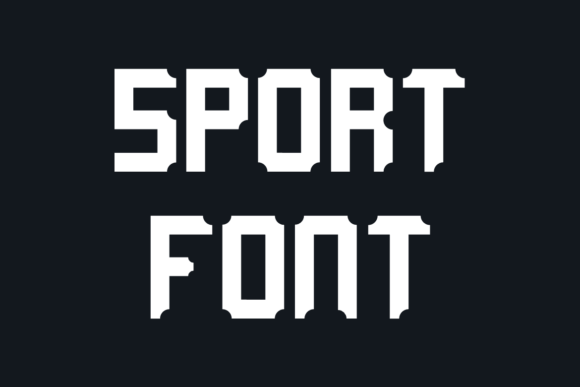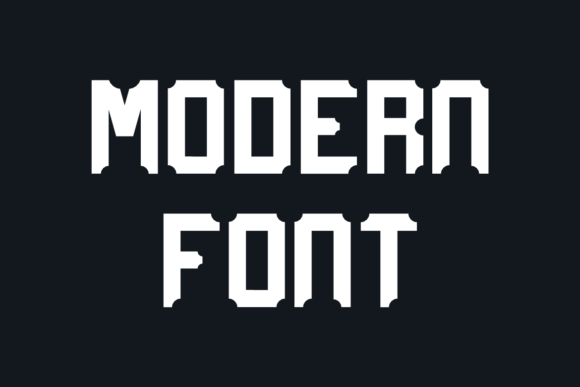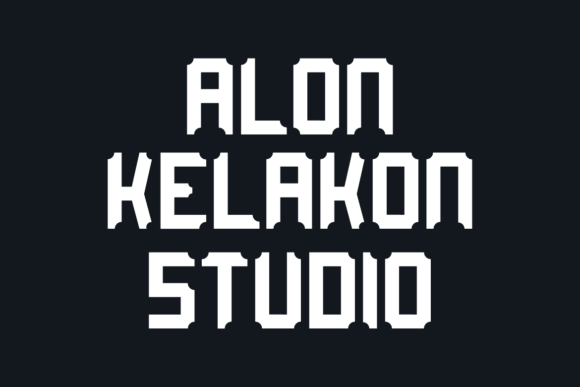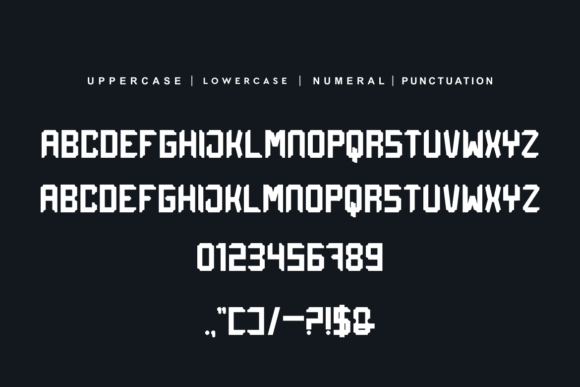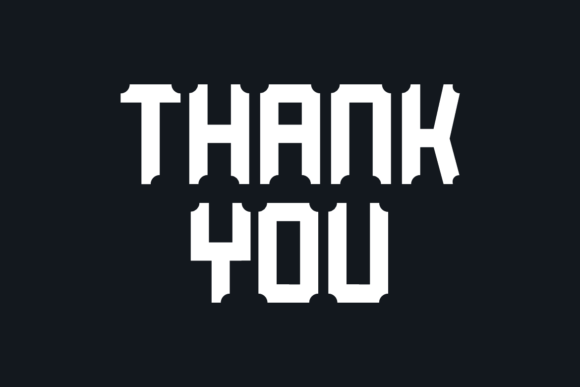
Introducing Garskin Font: The Ultimate Display Font for Modern Designers
In the world of typography, fonts play a crucial role in conveying the tone and personality of a design. For designers, crafters, and digital artists, finding the perfect font can make all the difference in creating visually stunning and effective designs. If you’re on the hunt for a bold, trendy, and versatile font, look no further than Garskin Font, specifically its bold and eye-catching variant, Grimstroke.
What is Grimstroke?
Grimstroke is a bold, all-caps display font that embodies the perfect blend of modern trendiness and classic typography. Its robust and commanding presence makes it an ideal choice for a wide range of design applications. Whether you’re working on crafting projects, digital designs, presentations, or greeting cards, Grimstroke is the perfect companion to help you make a statement.
Key Features of Grimstroke
- Bold and Eye-Catching: Grimstroke’s bold design ensures that your text doesn’t go unnoticed. Its substantial presence is perfect for headlines, titles, and any design element you want to highlight.
- All-Caps Design: The all-caps design of Grimstroke lends it a sense of grandeur and formality, making it suitable for a variety of professional and creative projects.
- Trendy and Modern: With its clean lines and contemporary aesthetic, Grimstroke brings a touch of modernity to any design, ensuring it stays relevant and appealing.
- Versatile: Despite its bold nature, Grimstroke is surprisingly versatile. It can be used in various design contexts, from digital media to print materials, without losing its impact.
Use Cases for Grimstroke
The versatility of Grimstroke makes it suitable for a multitude of design projects. Here are some popular use cases:
- Crafting Projects: Add a professional touch to your handmade crafts, such as knitted items, jewelry, or art pieces, with custom labels or cards featuring Grimstroke.
- Digital Designing: Enhance your digital portfolios, social media graphics, and website headers with Grimstroke’s bold and modern aesthetic.
- Presentations: Make your presentation titles and key points stand out with Grimstroke, ensuring your message captures the audience’s attention.
- Greeting Cards Making: Create stunning and impactful greeting cards for special occasions with Grimstroke, adding a personal and stylish touch.
Tips for Using Grimstroke Effectively
To maximize the impact of Grimstroke in your designs, consider the following tips:
- Pair with Simplicity: Balance Grimstroke’s boldness by pairing it with simpler fonts for body text or secondary design elements.
- Play with Colors: Experiment with different colors to find the perfect contrast that makes your Grimstroke text pop.
- Consider Scale: Don’t be afraid to scale Grimstroke up or down according to your design needs, ensuring it always makes a statement.
Grimstroke, part of the Garskin Font family, is more than just a bold, all-caps display font. It’s a design powerhouse that brings trendiness, versatility, and impact to any project. Whether you’re a professional designer, a crafter, or simply someone who loves to dabble in digital design, Grimstroke is a valuable addition to your typographic arsenal. With its wide range of applications and ease of use, Grimstroke is set to become your go-to font for making a lasting impression.